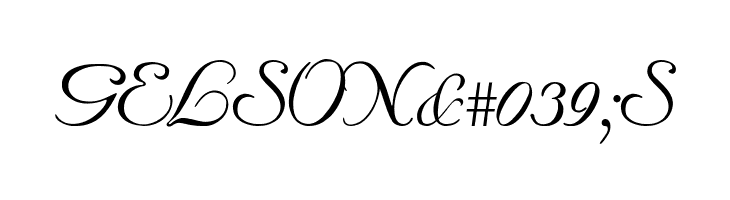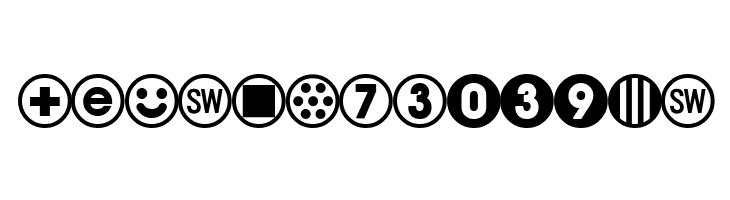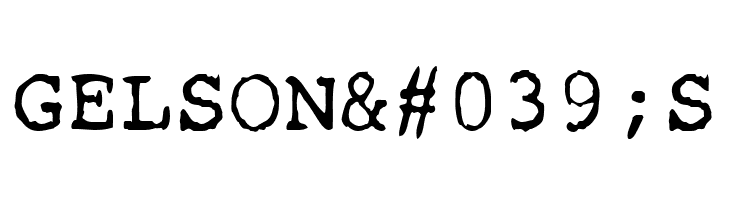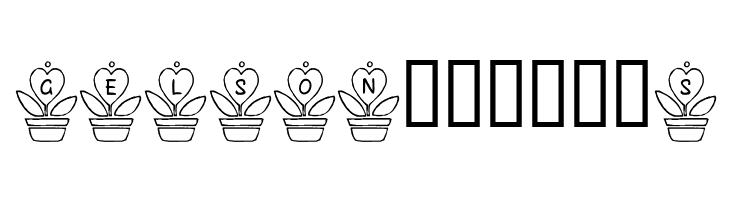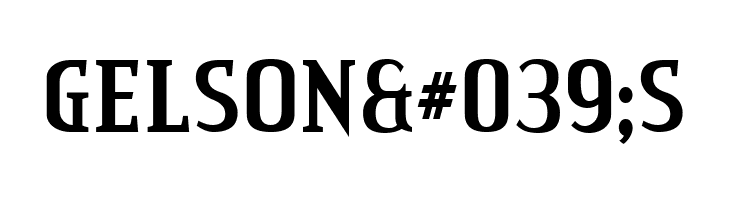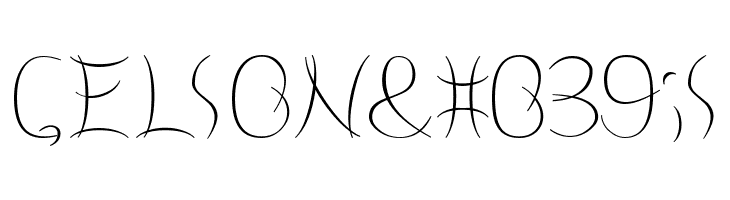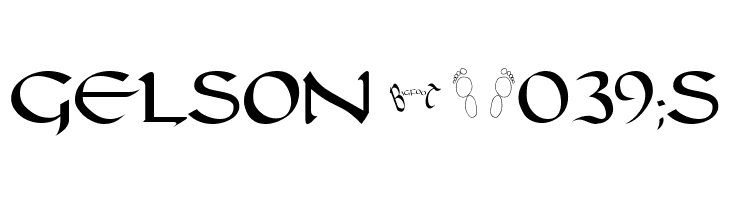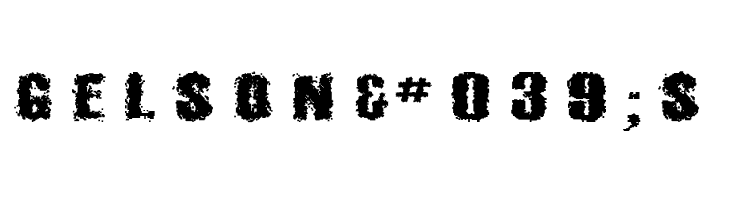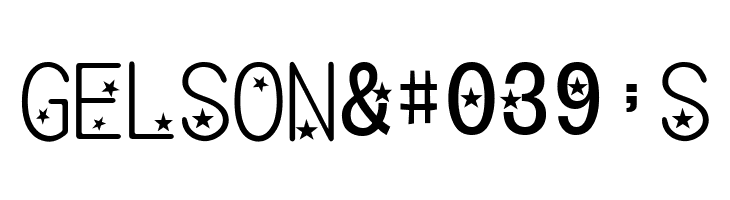
A bold, rounded font with playful, heart-shaped details.
An elegant, flowing script font with ornate, cursive letterforms.
A playful, circular font with bold, decorative characters and symbols.
A distressed, grunge-style font with irregular edges and a rough texture.
A bold, graffiti-inspired font with dynamic and edgy characters.
A bold, geometric font with a futuristic and tech-inspired design.
A playful and eclectic font with unique, decorative characters.
A decorative, jungle-themed font with bold letters and intricate foliage designs.
A playful, handwritten font with a casual and dynamic style.